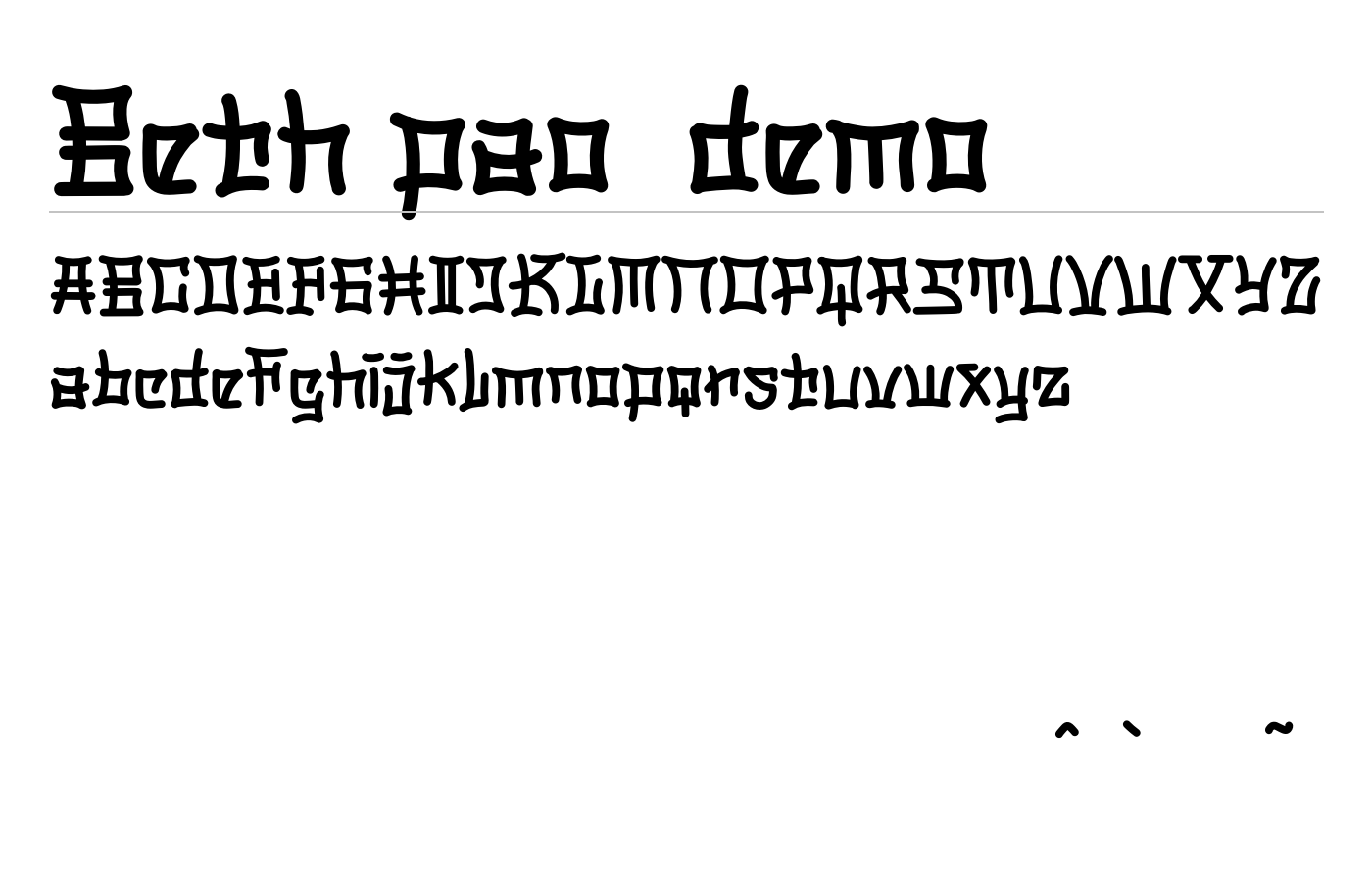
Beth pao-demo is a unique, playful sans serif font with a hand-drawn, artistic feel. Its bold weight and slightly condensed letterforms feature irregular, almost calligraphic strokes, which give the font a quirky, creative character ideal for eye-catching headlines, logos, and branding projects that want to convey originality and a casual, fun vibe. This font suits designs that need personality and a touch of unconventional style rather than traditional readability.
Beth pao-demo Font
About Beth pao-demo Font